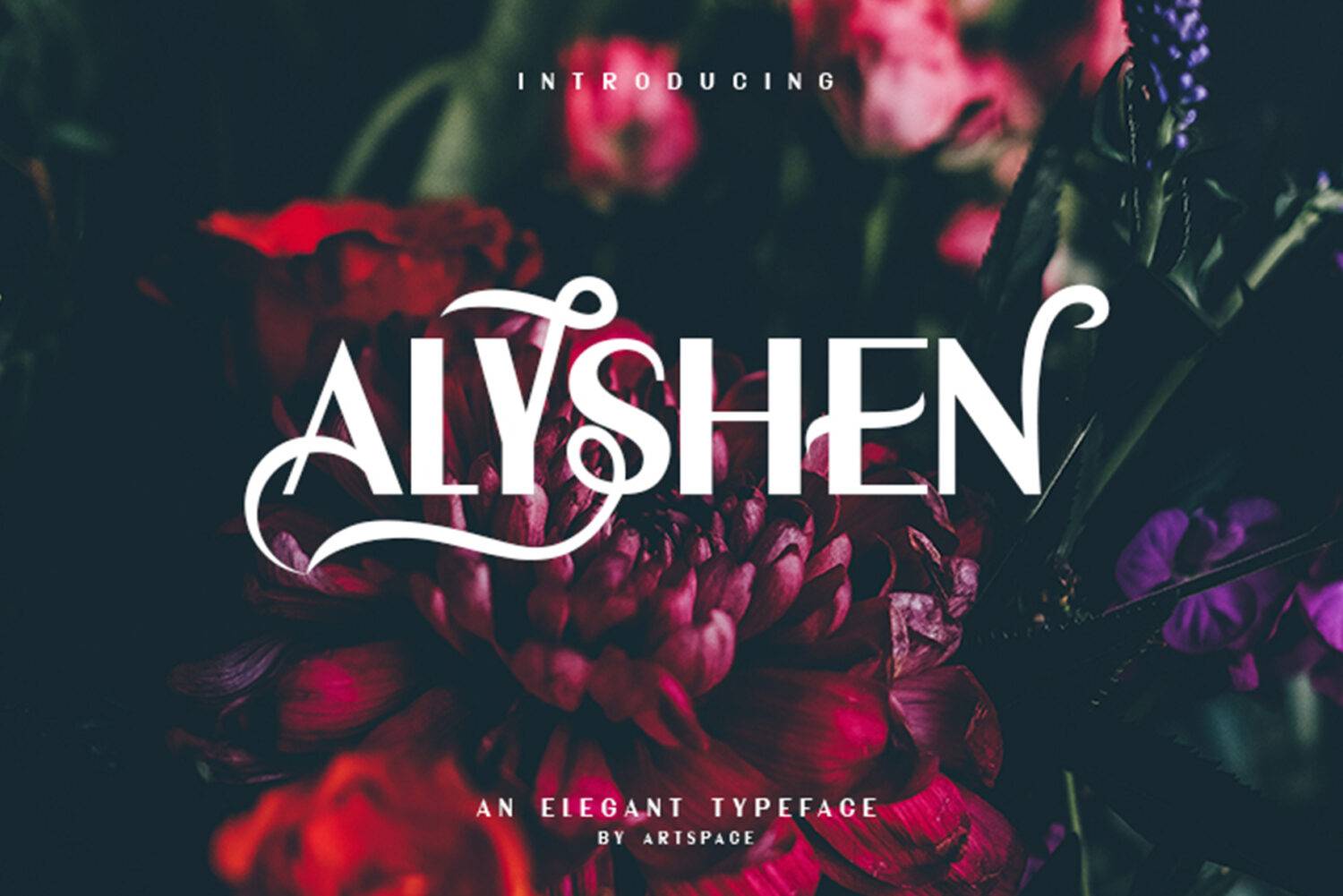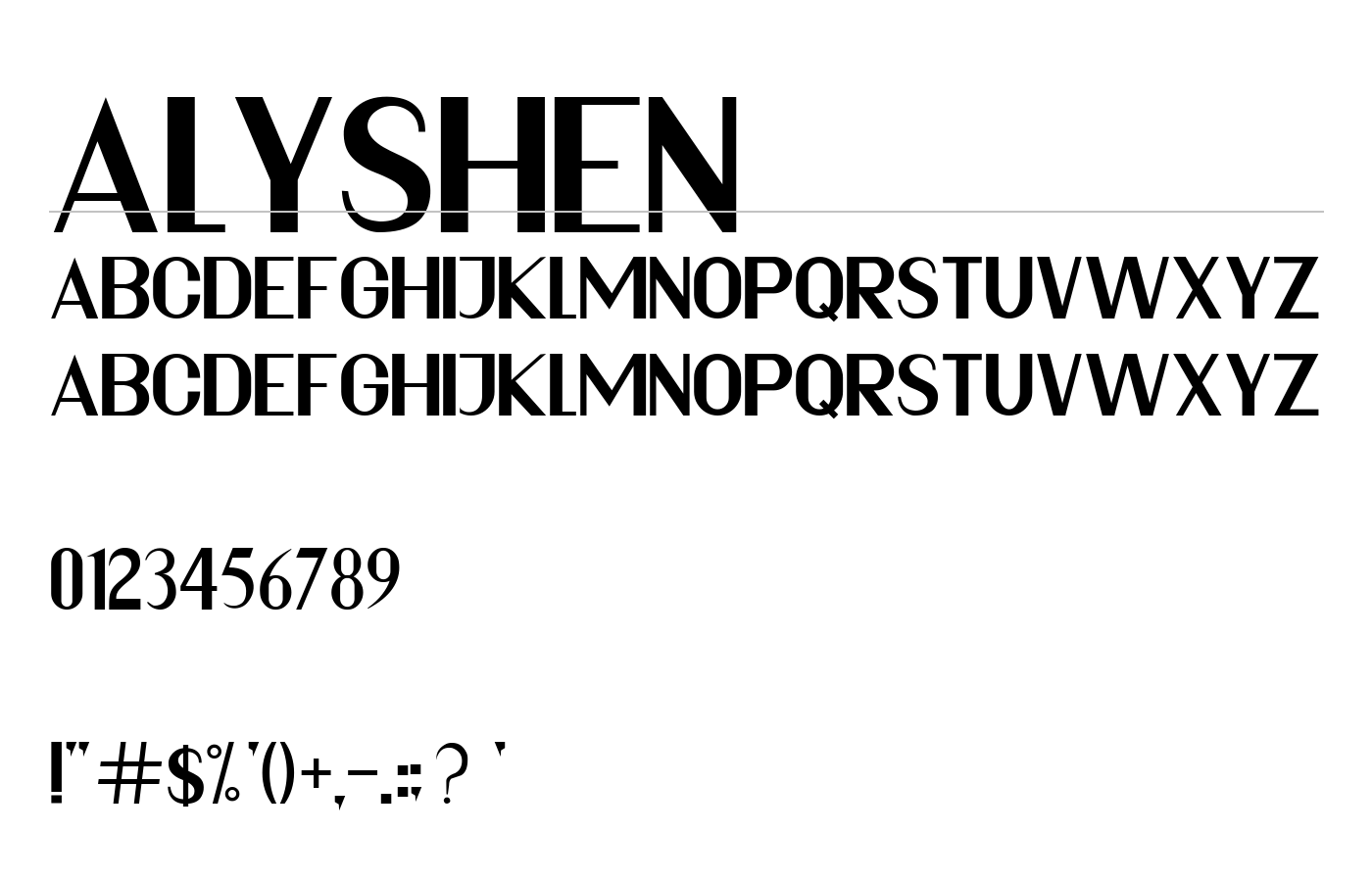
Alyshen is a stylish, modern sans serif font characterized by its tall, narrow letterforms and high contrast between thick and thin strokes. With its sharp geometric shapes and elegant curves, it exudes a sophisticated, contemporary vibe perfect for upscale branding, editorial headlines, and fashion-related designs. Its clean, condensed style makes it an excellent choice for striking logos and impactful display text where refined elegance and clarity are essential.
Alyshen Font
| Designer | Artspace 2018 |